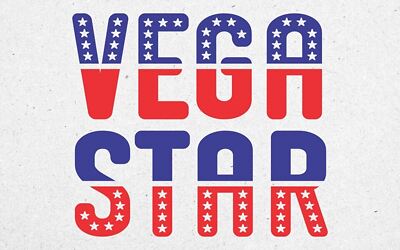
Star Minor is a display typeface designed to capture the mesmerizing beauty and wonder of the night sky. Each character is meticulously crafted with a matrix of stars, creating a celestial effect that’s perfect for designs inspired by astronomy, science fiction, or a sense of cosmic exploration.
Whether you’re crafting space-themed posters, futuristic book covers, or branding materials that need a touch of cosmic grandeur, Star Minor font adds a mesmerizing and otherworldly dimension to every letter.